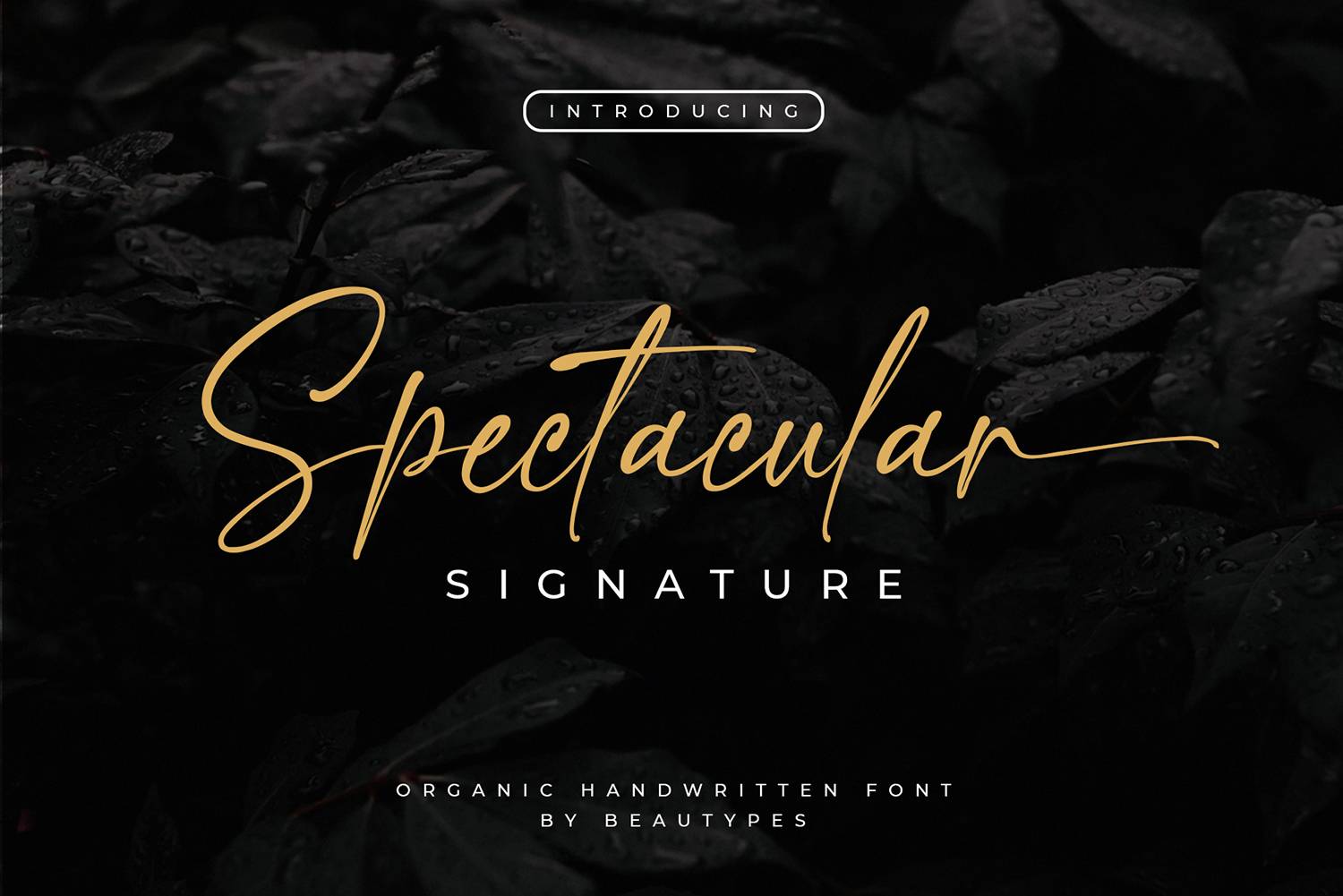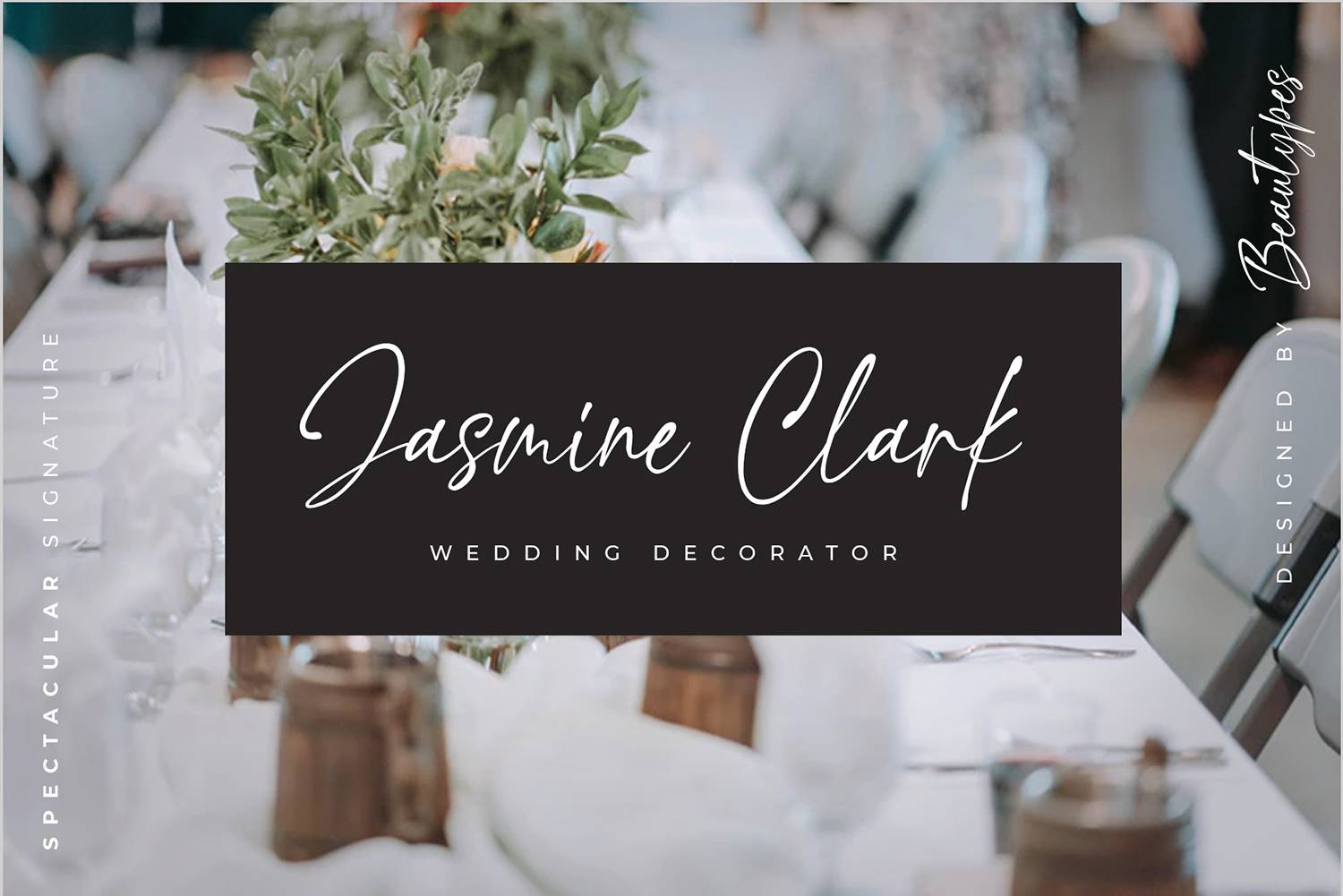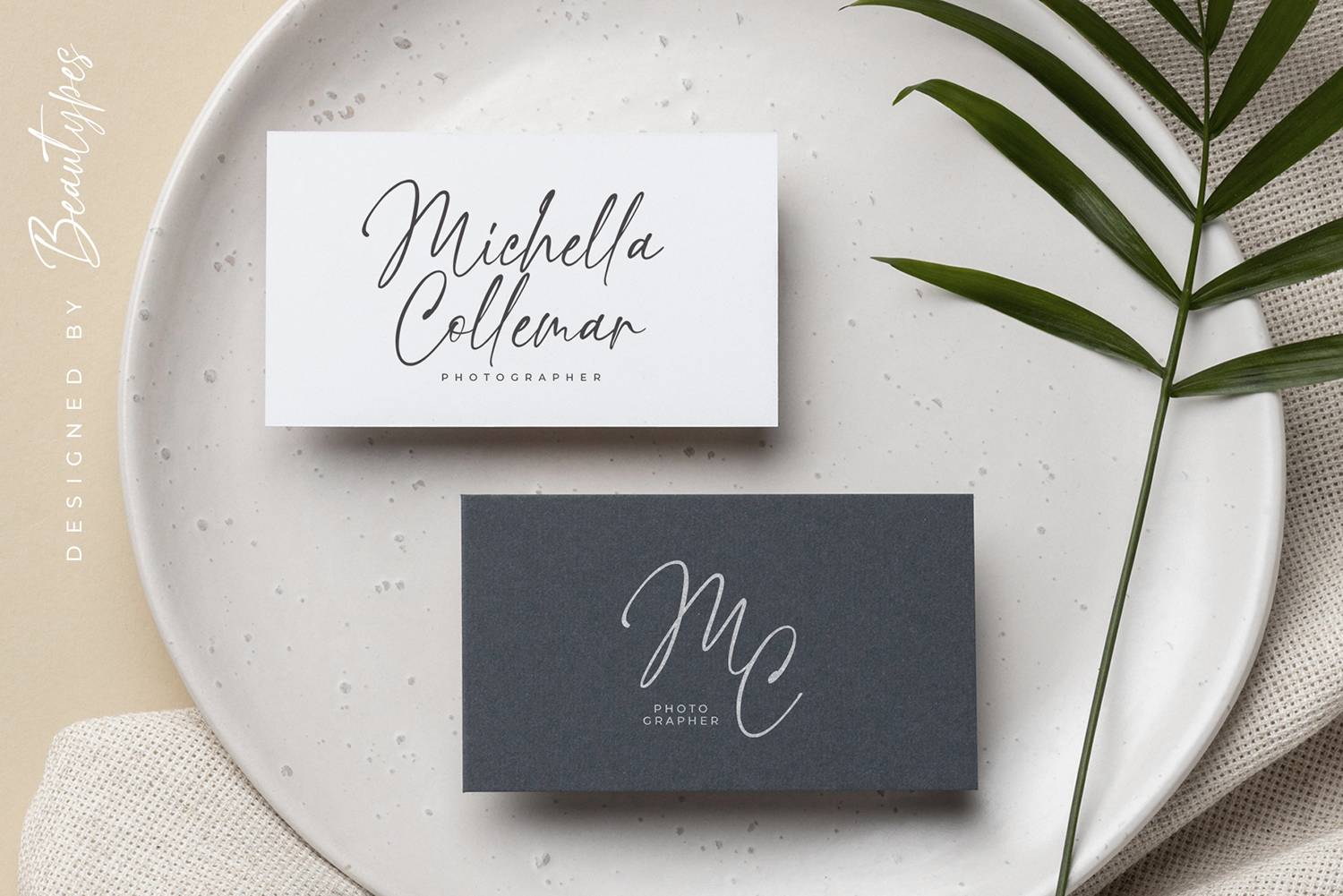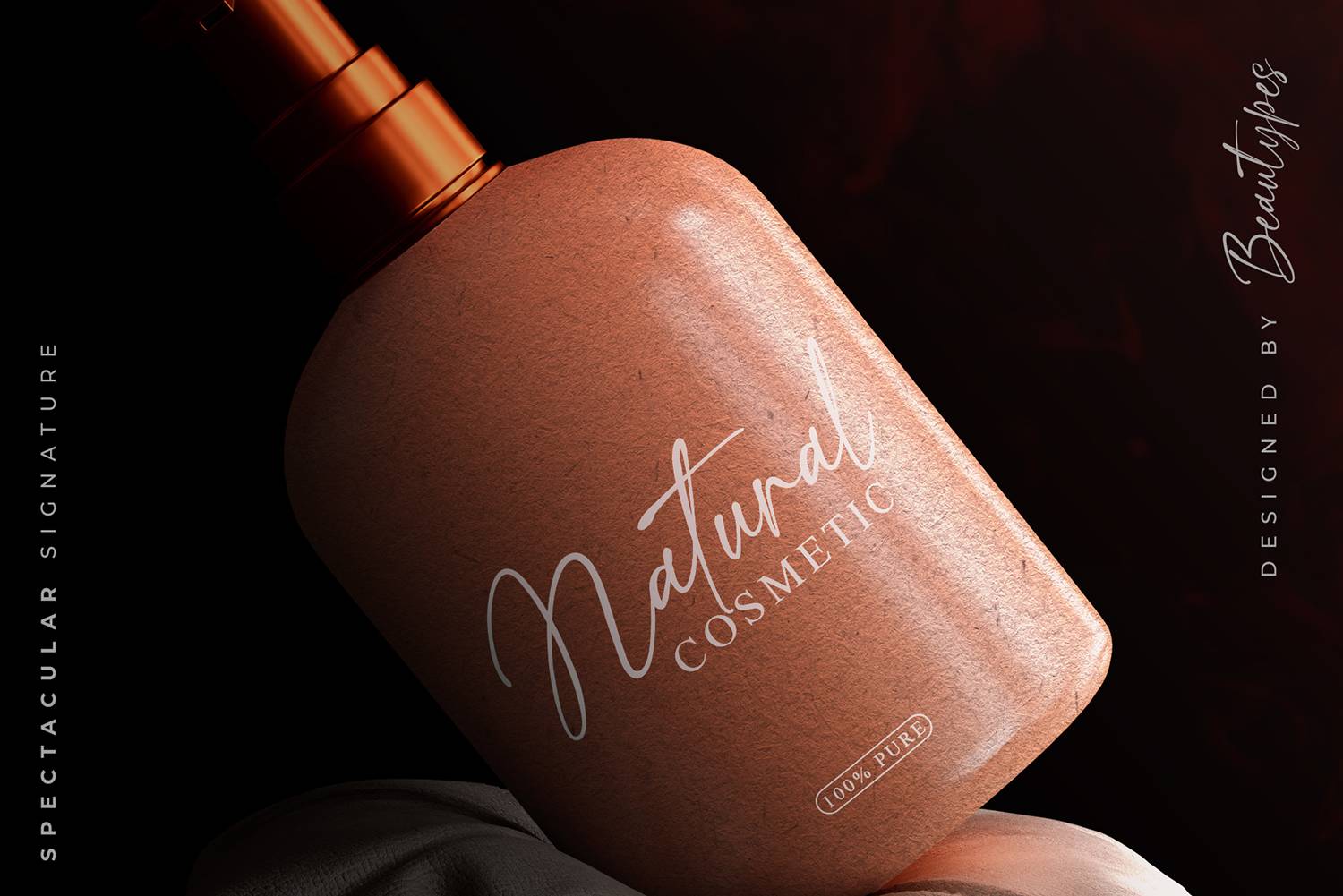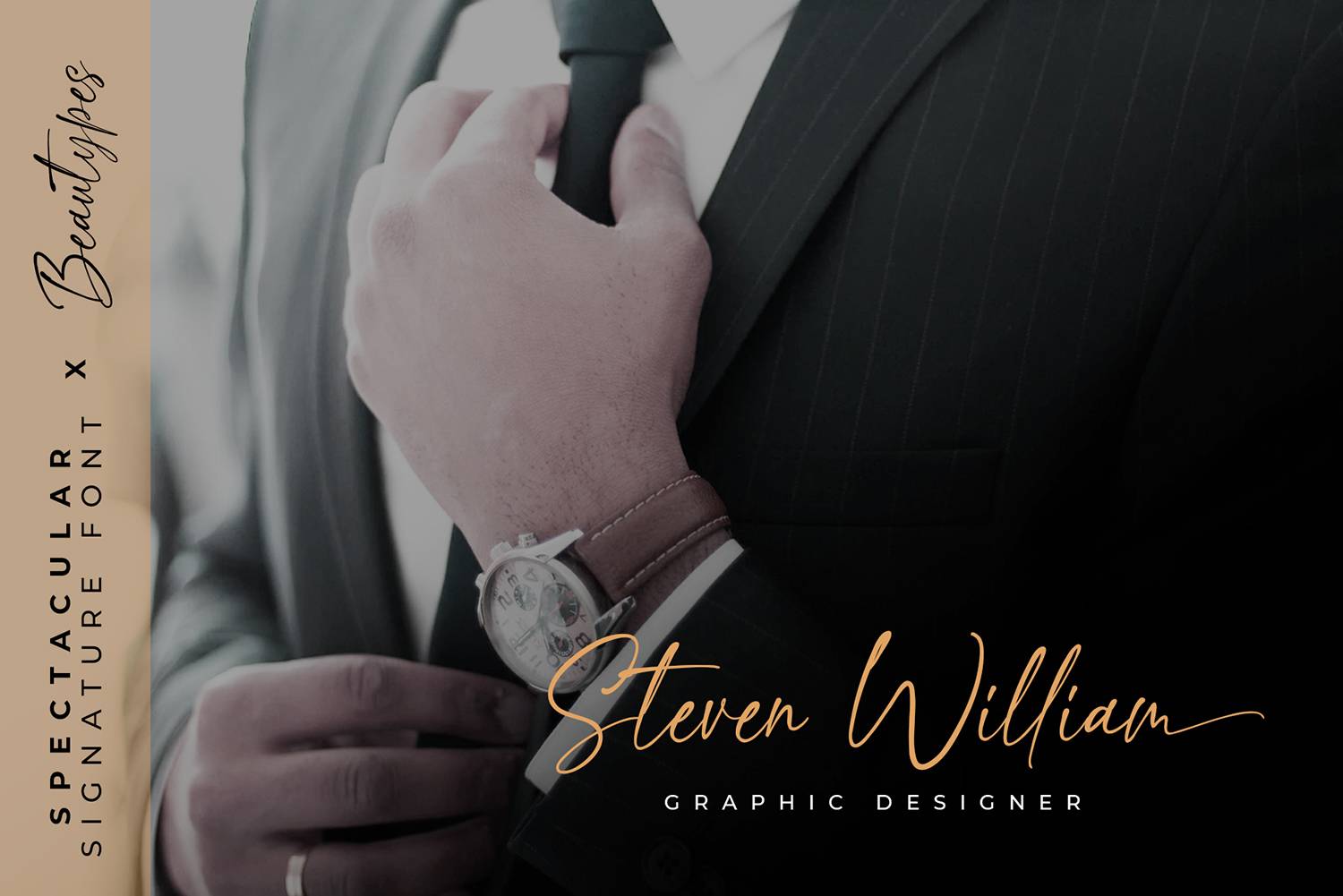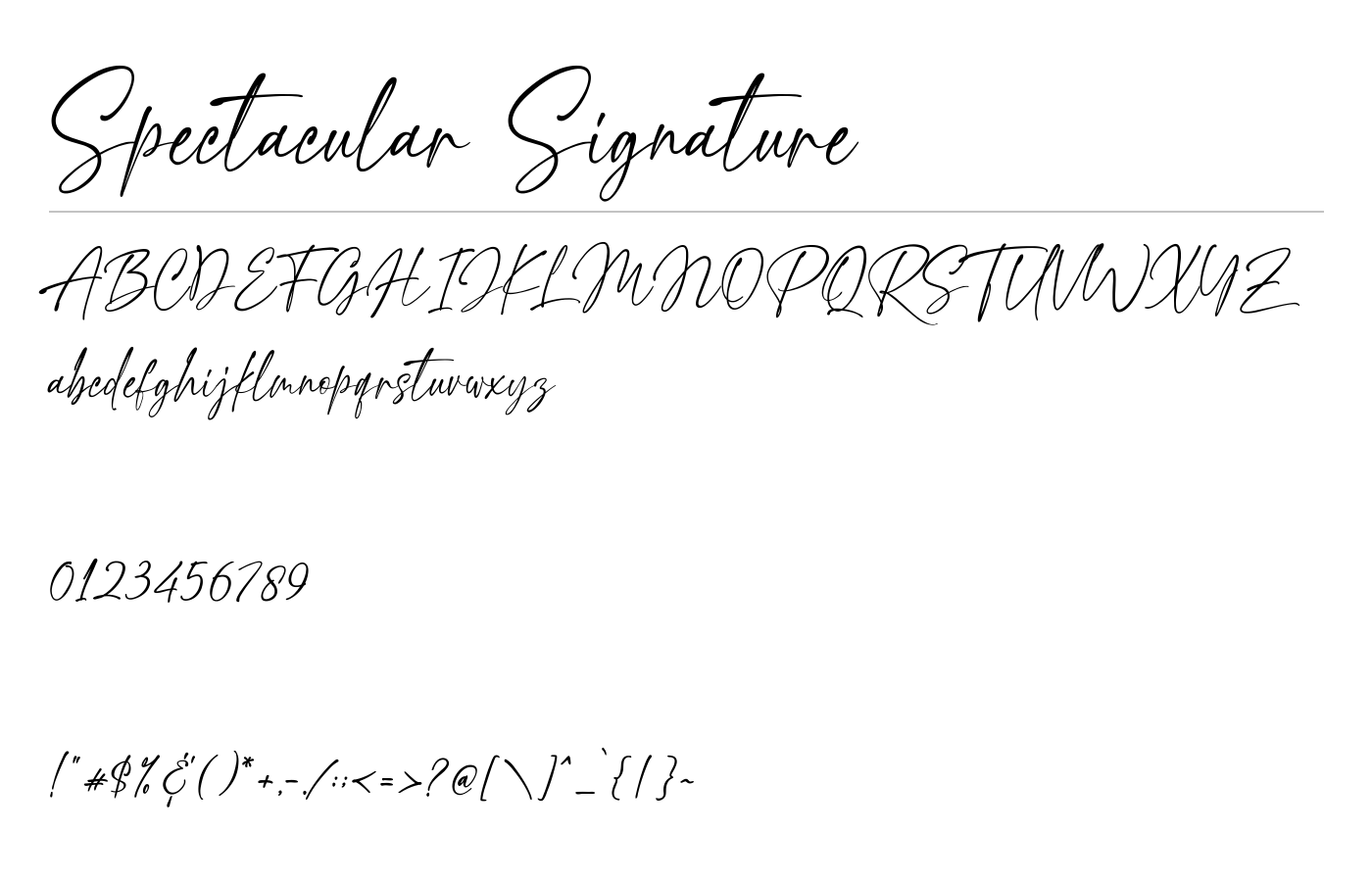
Spectacular Font is a delicate, modern script typeface that mimics elegant, hand-drawn handwriting with its thin, flowing strokes and natural, slightly irregular letterforms. Its light weight and airy style make it perfect for adding a personal, sophisticated touch to branding, invitations, and logos, especially where a stylish, signature-like feel is desired. This font works beautifully in designs that need a refined yet approachable look, combining charm with readability.
Spectacular Font
About Spectacular Font
| Font family | Spectacular Font |
| Designer | Beautype |